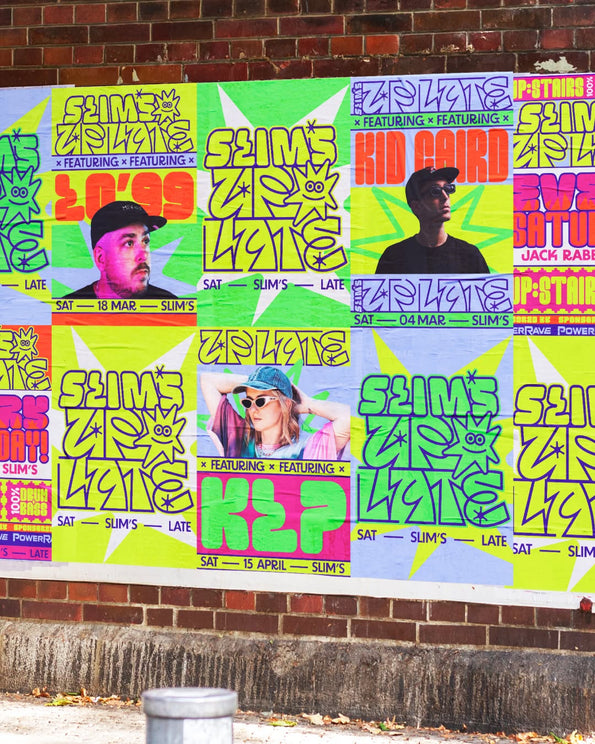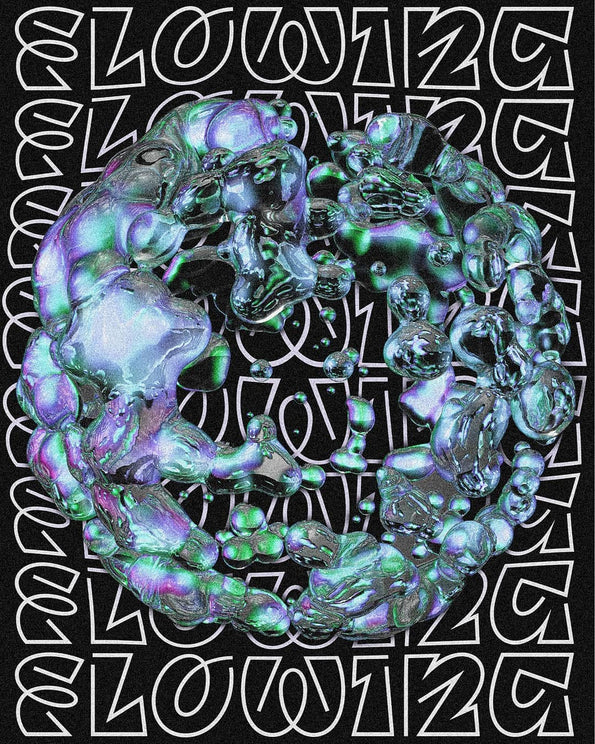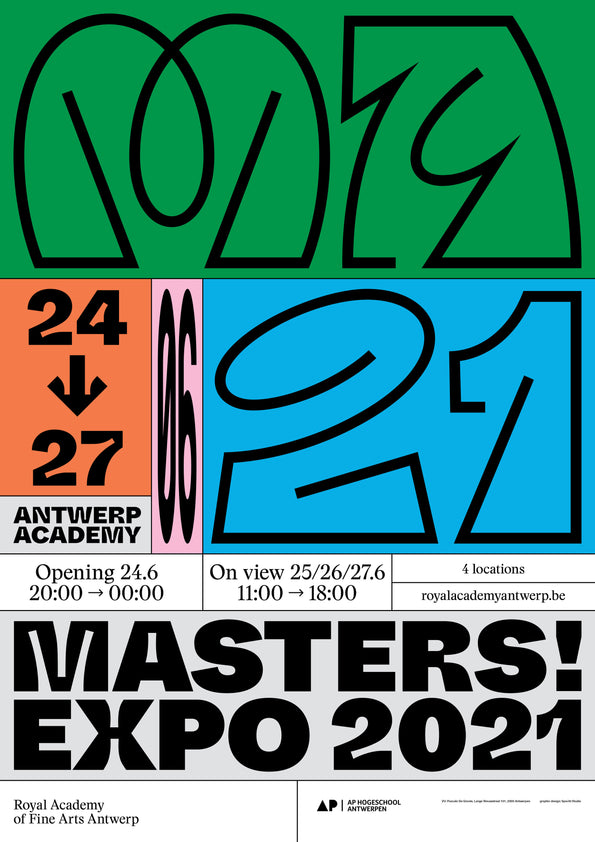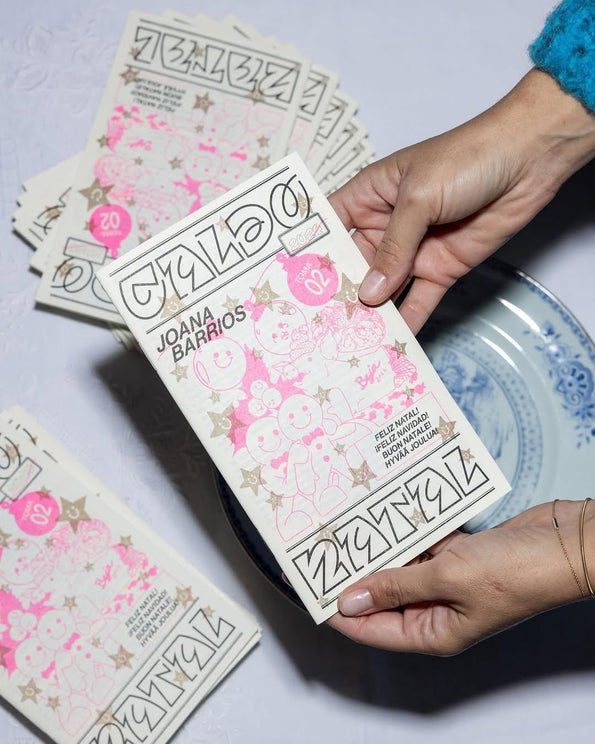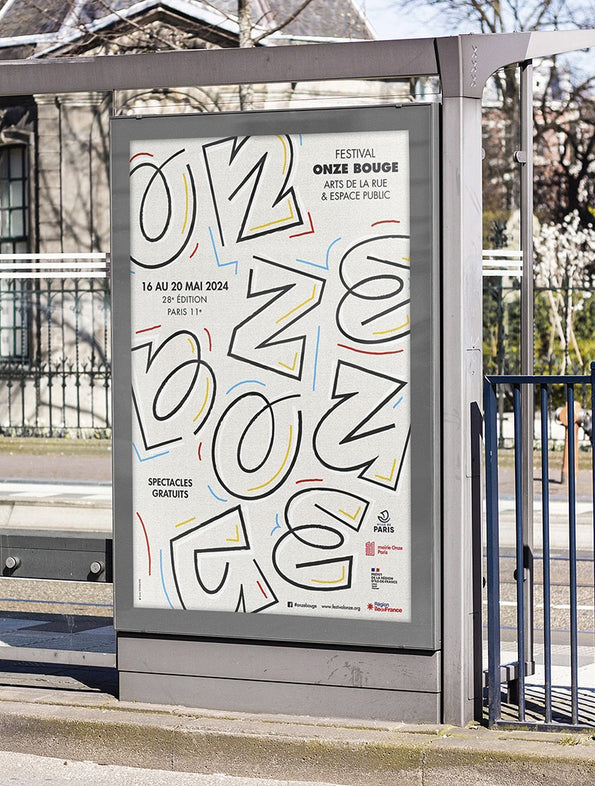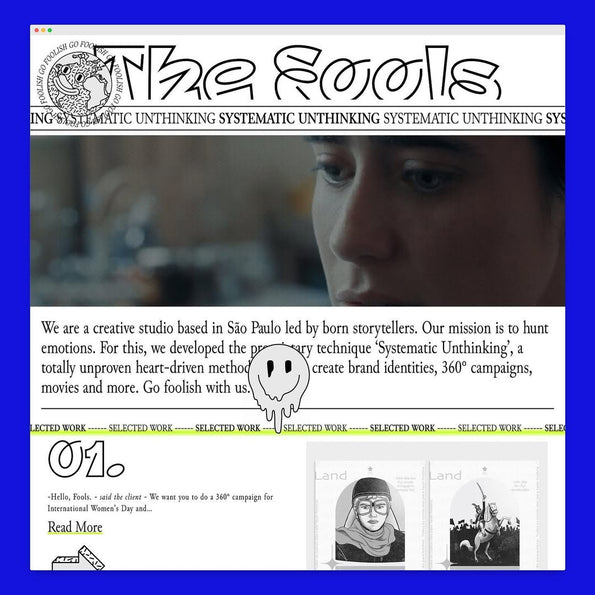
Aerobik
Our most flexible typeface available.
Here comes our new Aerobik display typeface! With its unique bouncing aesthetics made of outlines, it does not match any existing typographic style. It refers as much to graffiti in some aspects as to the way motion and speed are represented in comic books.
Conceived to be used with regular case or capital letters, it turns out to be surprisingly readable in both ways.